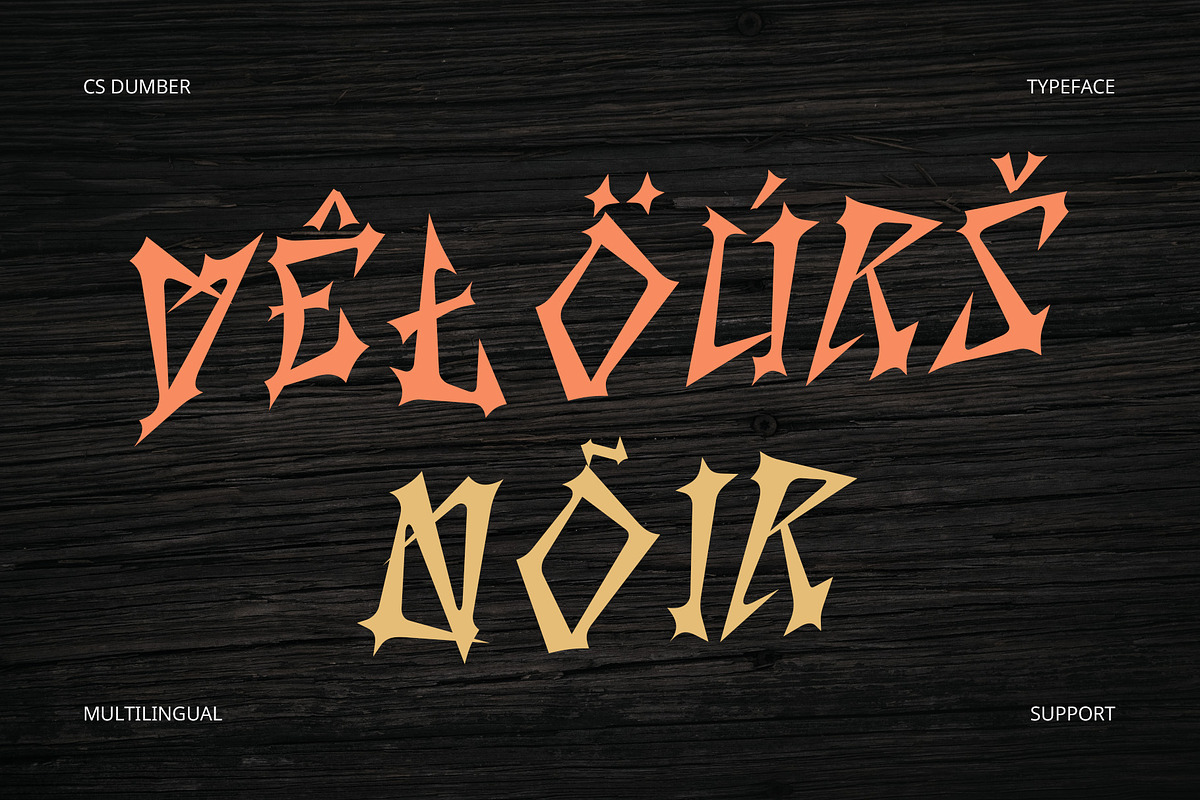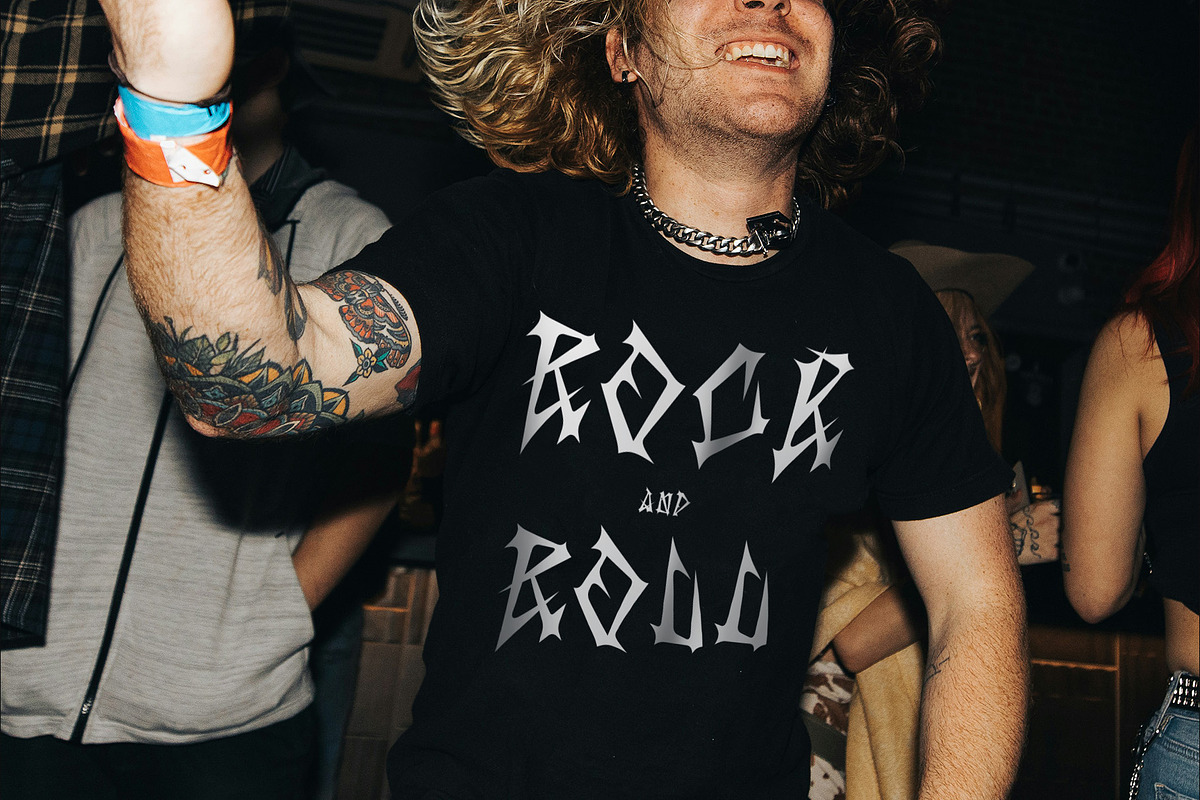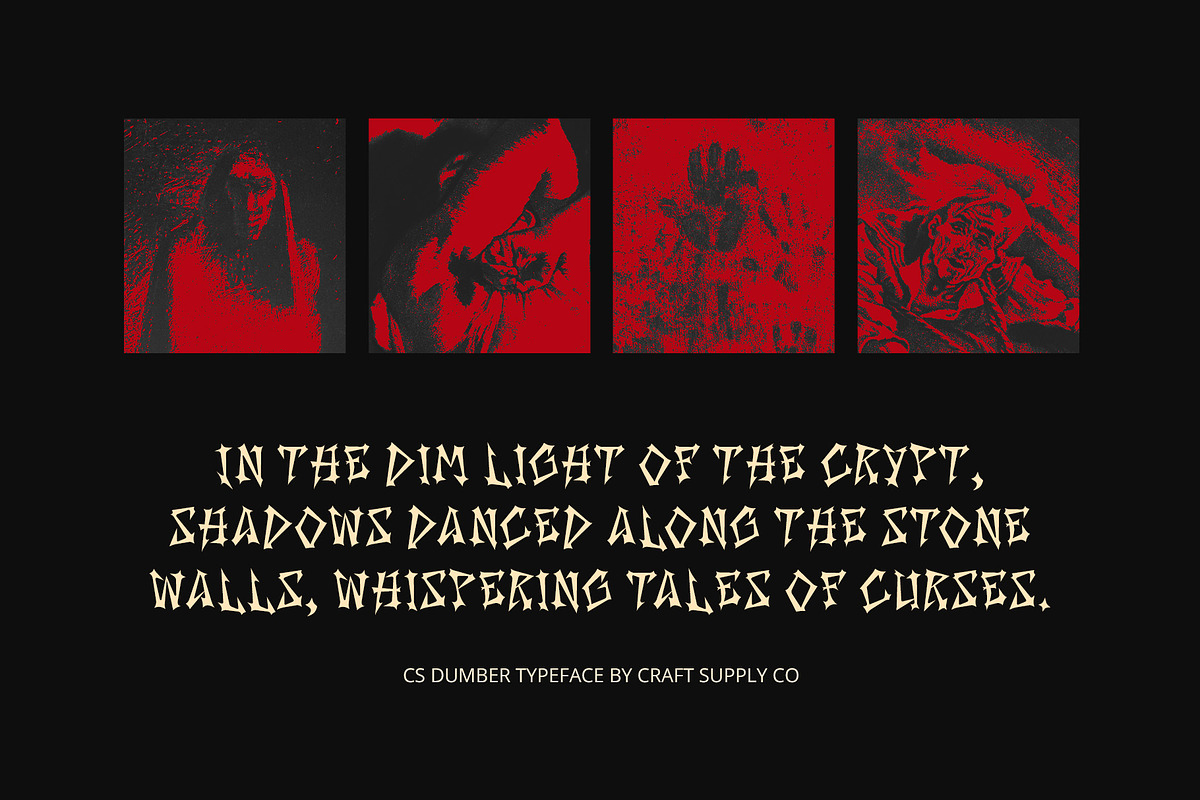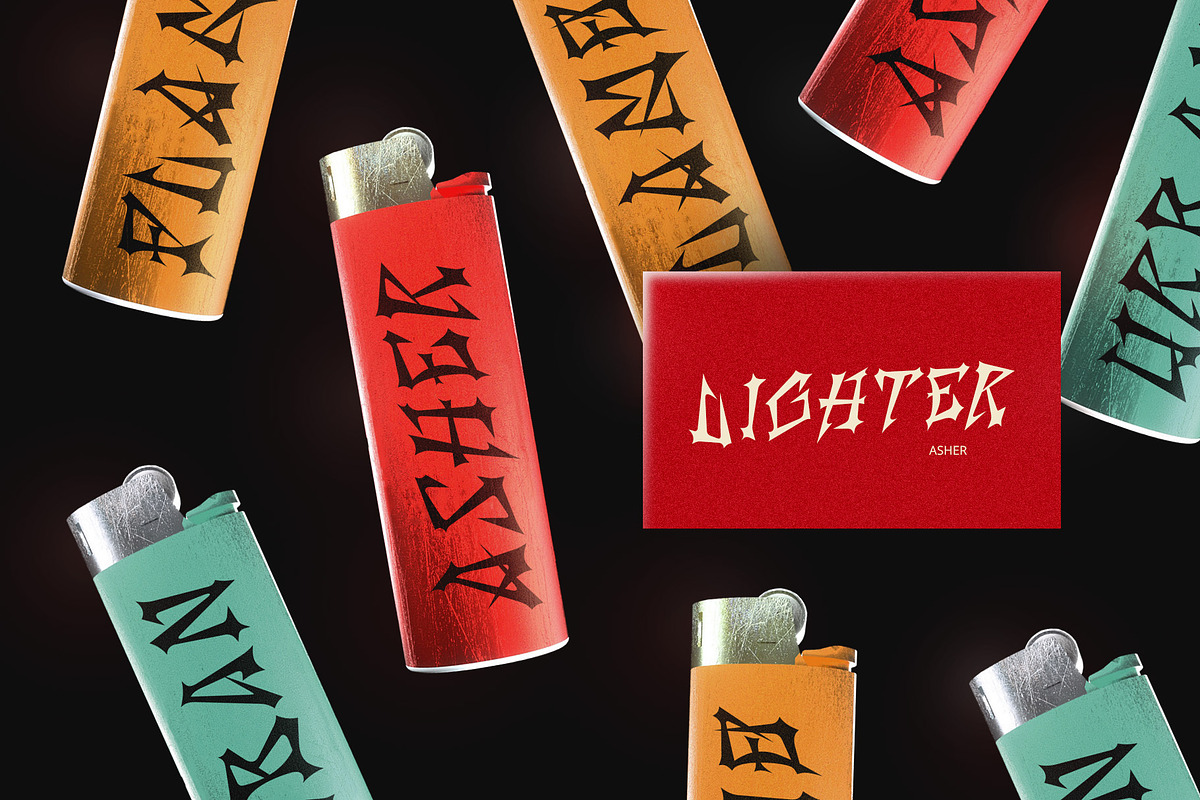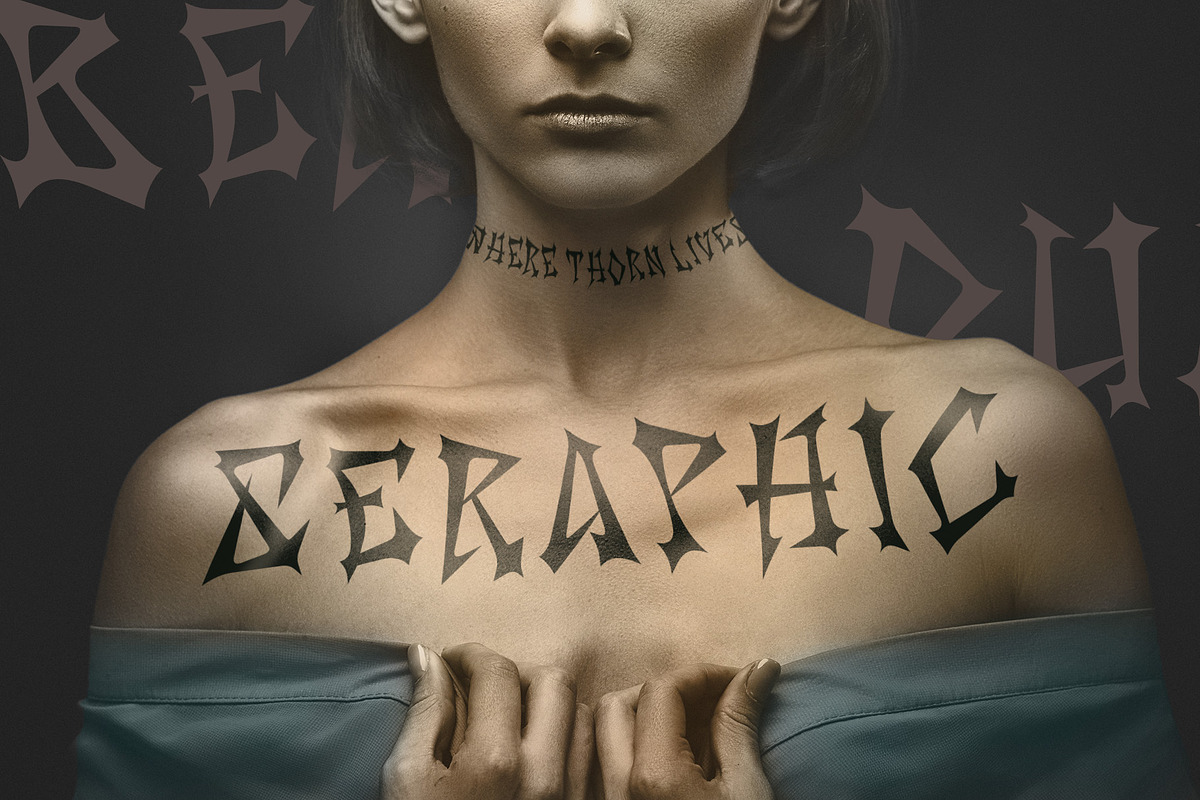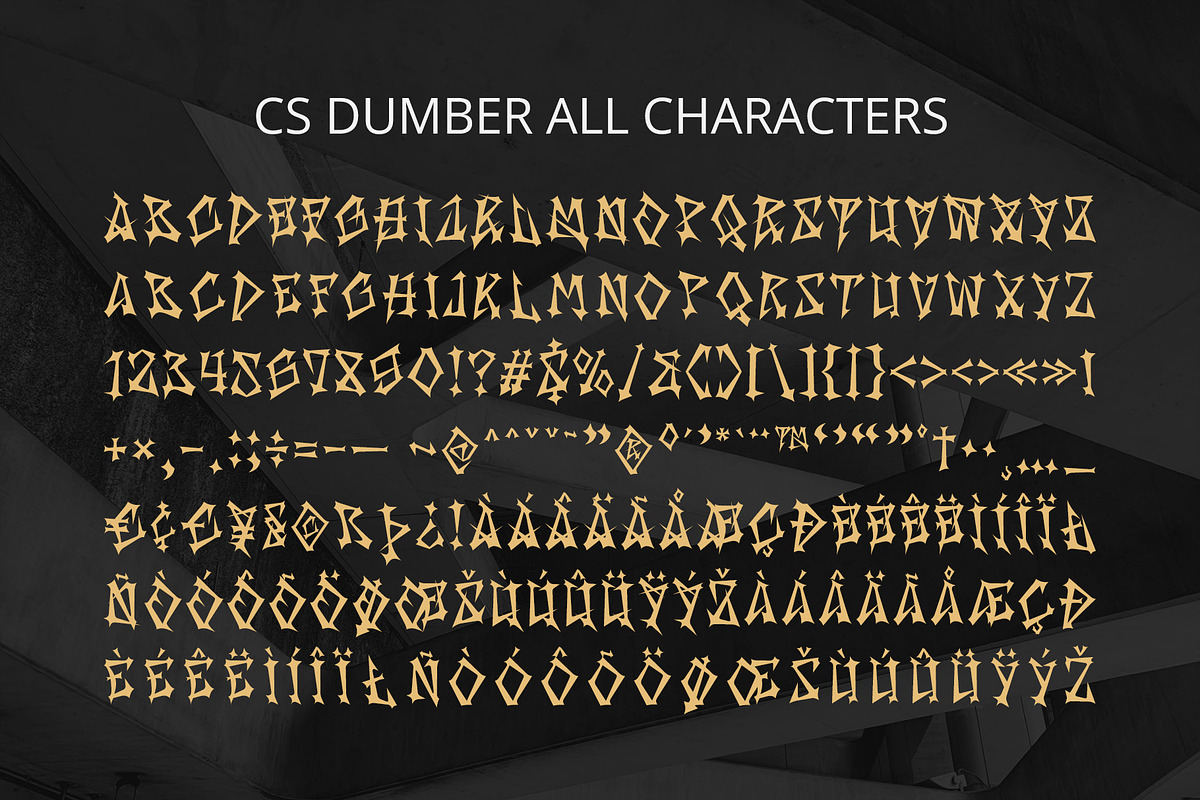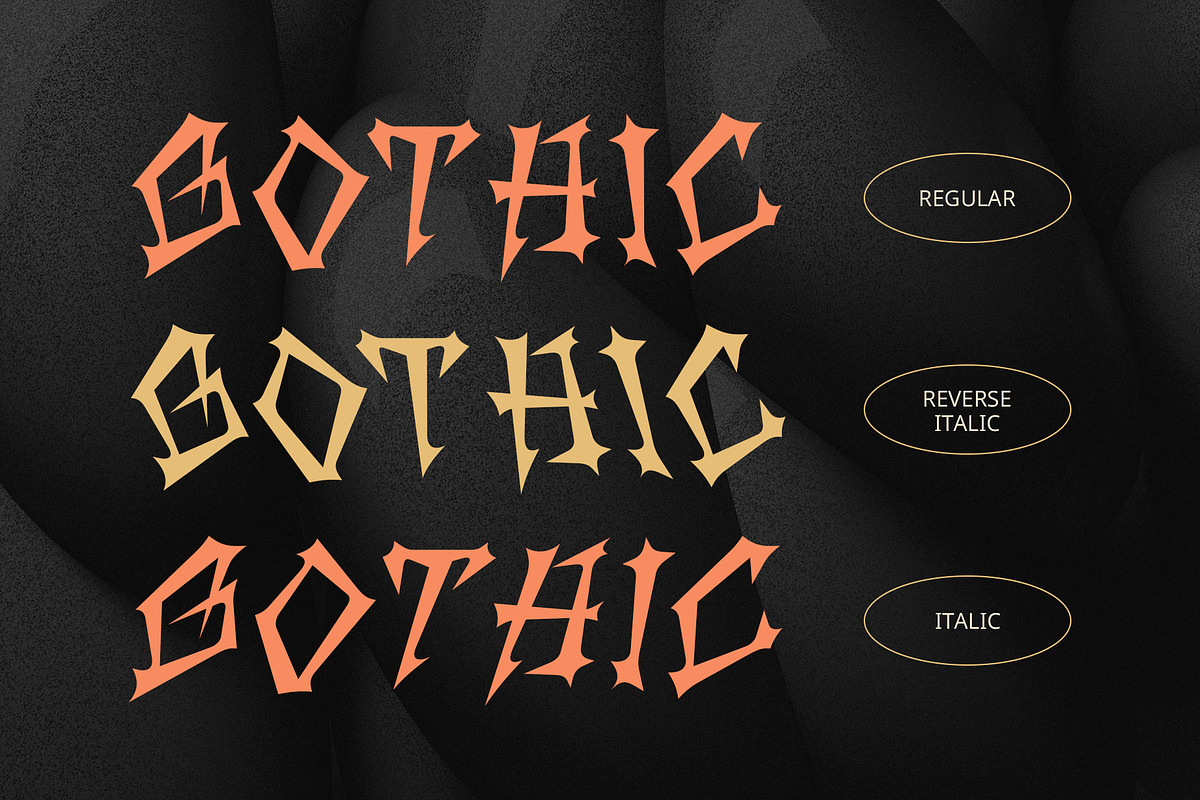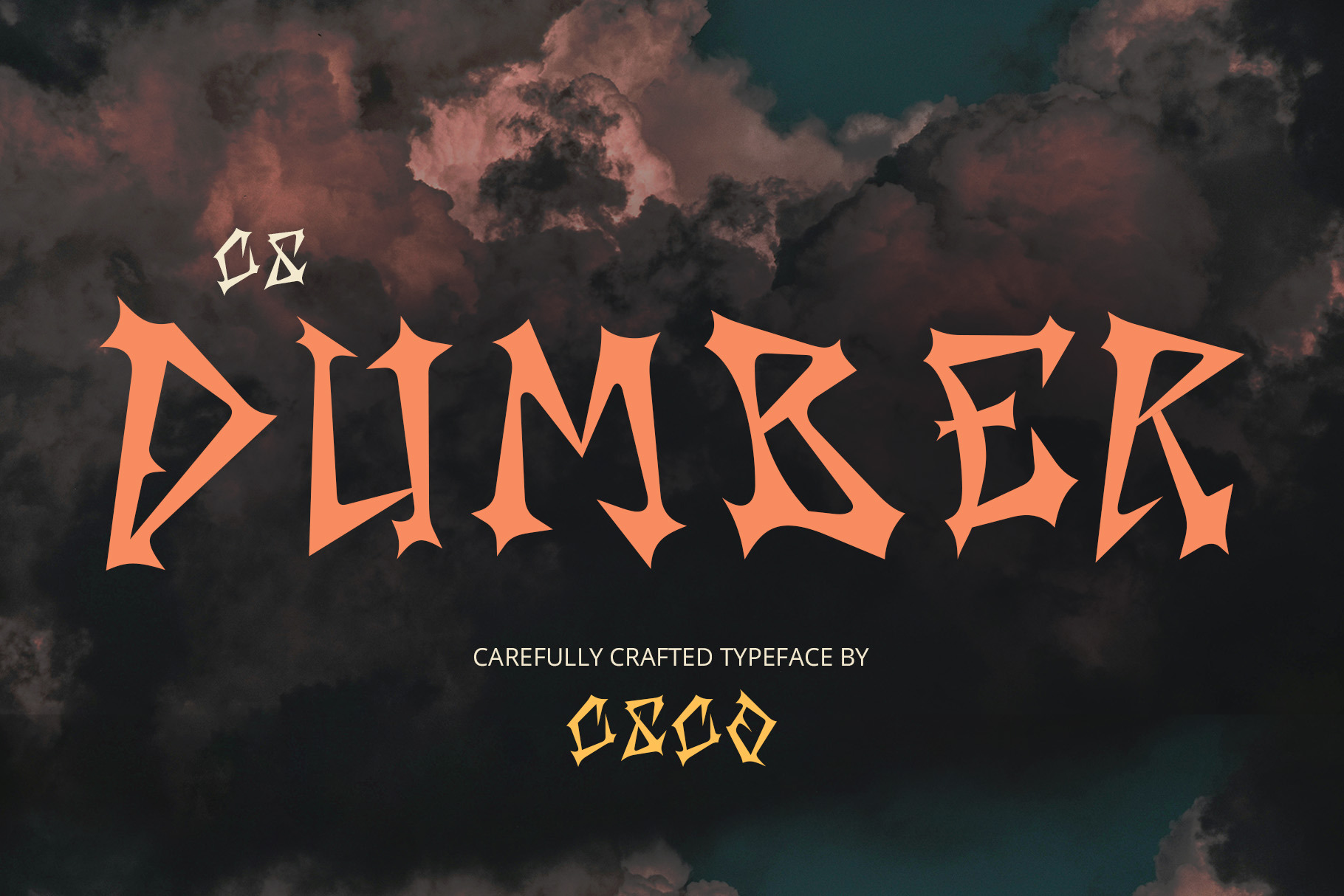
CS Dumber – Heavy Metal Font
CS Dumber – Heavy Metal Font: Bold, Aggressive, and Unstoppable
Display Font with Heavy Metal Aesthetic CS Dumber – Heavy Metal Font is a powerful display typeface designed to capture the raw intensity and rebellious spirit of heavy metal music. With bold lines, sharp angles, and rough details, this font commands attention, creating a dynamic and aggressive impression that resonates with strength and power. Inspired by the gritty, high-energy world of heavy metal, CS Dumber features eye-catching letterforms that embody the genre’s intense, defiant vibe.
Thick, Sharp Letterforms for Maximum Impact The bold, heavy lines of CS Dumber evoke a sense of force, while the sharp angles give the design an edgy, rebellious character. These dramatic elements make it perfect for designs that need to stand out and make a statement. Whether you’re creating large-scale concert posters, eye-popping album covers, or branding for heavy-duty projects, CS Dumber provides the powerful typography needed to ensure a striking visual impact.
Grunge and Gothic Elements for Added Drama Inspired by the visual style of punk and gothic culture, CS Dumber includes intricate details like grunge textures and sharp edges, adding a raw and untamed quality. These decorative features amplify the font’s intensity, making it ideal for projects that demand visual drama and creative boldness.
- CS Dumber Regular
- CS Dumber Italic
- CS Dumber Reverse Italic